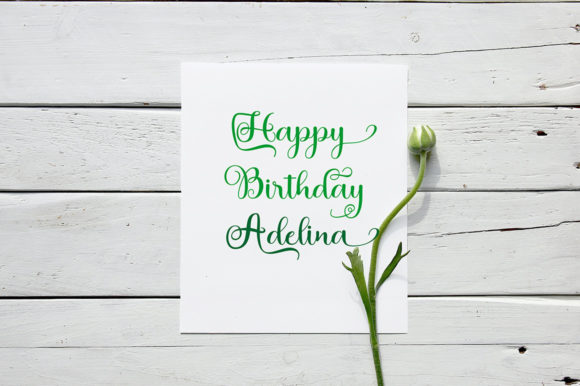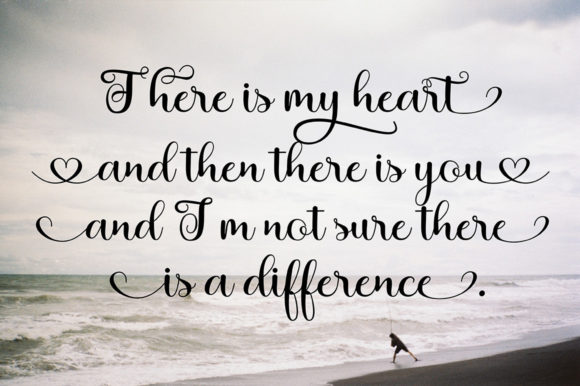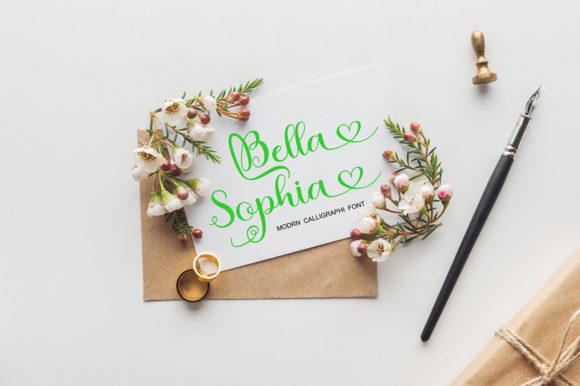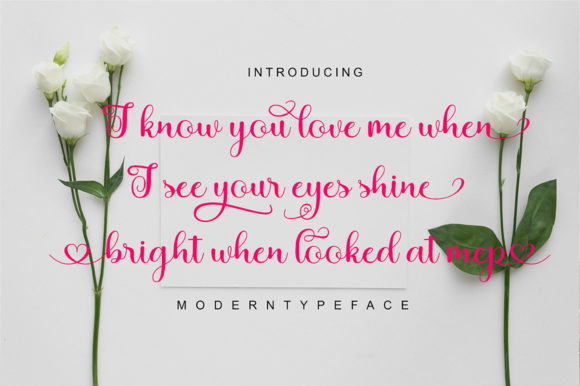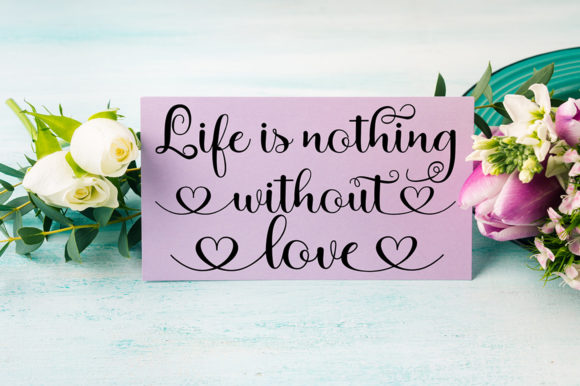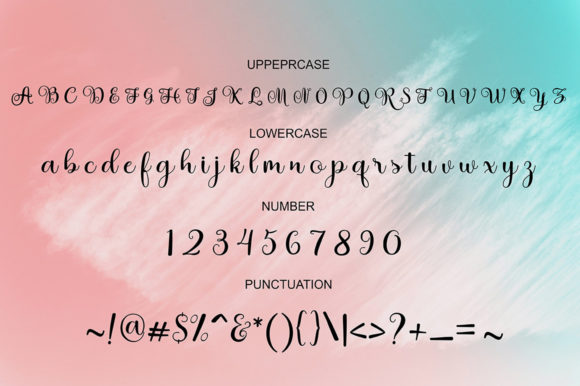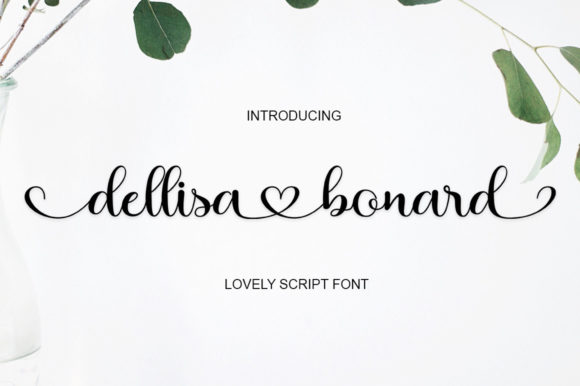
Dellisa Bonard Font: Elevate Your Designs with Elegance and Sophistication
In the world of typography, few fonts capture the essence of romance and sweetness as beautifully as Dellisa Bonard. This exquisite calligraphy typeface is designed to add a touch of luxury to any design project, making it a perfect choice for crafters, designers, and anyone looking to infuse their work with elegance and sophistication.
The Charm of Dellisa Bonard
Dellisa Bonard Font is characterized by its unique, dancing script, where characters seem to sway along the baseline, creating a fluid and dynamic visual effect. This romantic typeface is not just a font; it’s an experience. It brings a level of refinement and class to any project, whether it’s a wedding invitation, a branding campaign, a packaging design, or a digital interface.
Key Features of Dellisa Bonard Font
- Romantic and Sweet Calligraphy: Dellisa Bonard boasts a beautiful, hand-crafted calligraphy style that exudes warmth and intimacy, perfect for designs that require a personal touch.
- Luxury and Sophistication: The fluidity and elegance of this font make it an excellent choice for luxury brands, high-end products, and sophisticated design projects.
- PUA Encoded: Being PUA (Private Use Area) encoded, Dellisa Bonard allows easy access to a wide range of glyphs and ligatures, making it versatile and highly customizable for various design needs.
- Easy to Use: Thanks to its PUA encoding, designers can effortlessly access all the amazing glyphs and ligatures, streamlining the design process and allowing for more creativity and experimentation.
Applications of Dellisa Bonard Font
The versatility of Dellisa Bonard Font makes it suitable for a myriad of design applications. Here are a few ideas to get you started:
- Wedding and Event Stationery: Create stunning wedding invitations, save-the-date cards, and event posters that set the tone for a memorable occasion.
- Branding and Logo Design: Add a touch of elegance to your brand’s identity with a custom logo or wordmark designed using Dellisa Bonard.
- Packaging Design: Elevate your product packaging with sophisticated labels and packaging materials that stand out on store shelves.
- Digital Design: Use Dellisa Bonard in digital interfaces, such as website headers, mobile app UI, and social media graphics, to create a luxurious user experience.
Tips for Using Dellisa Bonard Effectively
To make the most of Dellisa Bonard Font, consider the following tips:
- Pair with Contrasting Fonts: Combine Dellisa Bonard with simpler, sans-serif fonts for a balanced and harmonious design.
- Adjust Letter Spacing: Experiment with letter spacing to enhance readability and achieve the desired visual effect.
- Utilize Ligatures: Take advantage of the font’s ligatures to add a unique touch to your text and make it more visually appealing.
Dellisa Bonard Font is more than just a typeface; it’s a design statement. With its romantic calligraphy, luxurious feel, and ease of use, it’s an invaluable asset for designers and crafters looking to add a touch of sophistication and elegance to their projects. Whether you’re working on a wedding invitation, a branding campaign, or digital design, Dellisa Bonard is sure to elevate your work and make it truly unforgettable.
So, why settle for ordinary when you can create something extraordinary with Dellisa Bonard Font? Dive into the world of luxury typography and let your designs dance with elegance and charm.